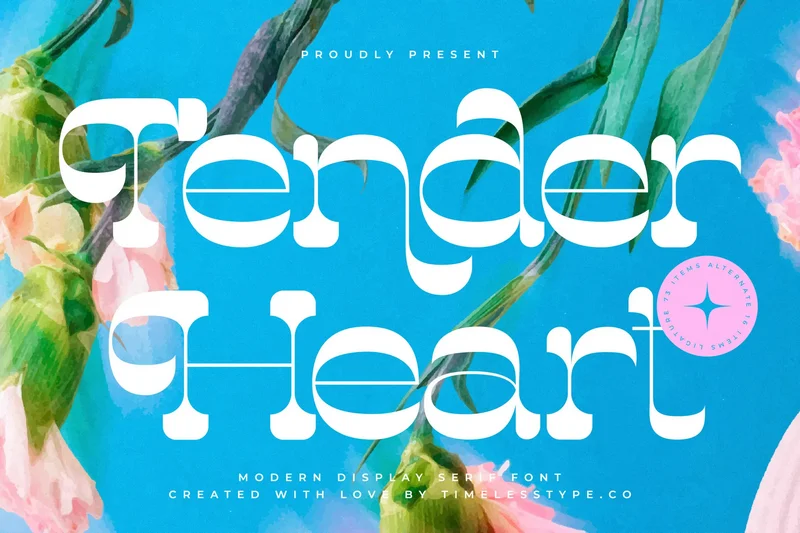
Tender Heart – Modern Display Serif Font
Tender Heart is a modern display serif font with soft curves and stylish alternates, crafted to deliver elegance with a contemporary twist. Its clean structure and artistic details make it a perfect fit for branding, packaging, editorial titles, invitations, posters, and logos. With its unique personality and versatile usability, Tender Heart is designed to bring sophistication and creativity to both digital and print projects.